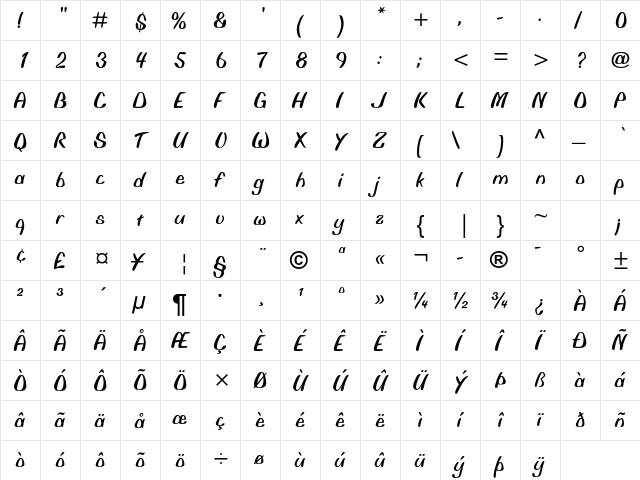
Biffo MT Std Regular
| Designer | Monotype Staff |
Design Context for Biffo MT Std Typeface
Biffo MT Std takes a measured approach to typography — its balanced proportions and neutral character make it a reliable workhorse for both digital and print work.